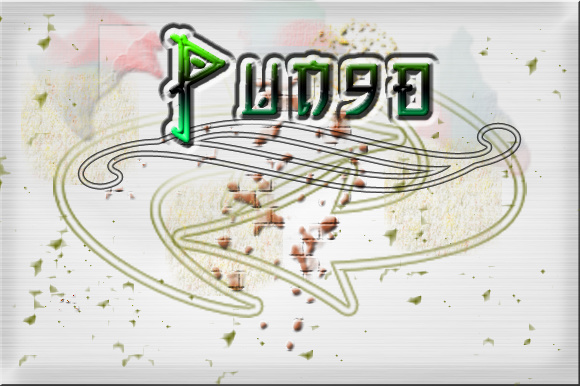
Pungo Font
About Pungo Font
Pungo is a unique script font which includes upper and lowercase letters. It can be used for every design that needs a unique look and feel.